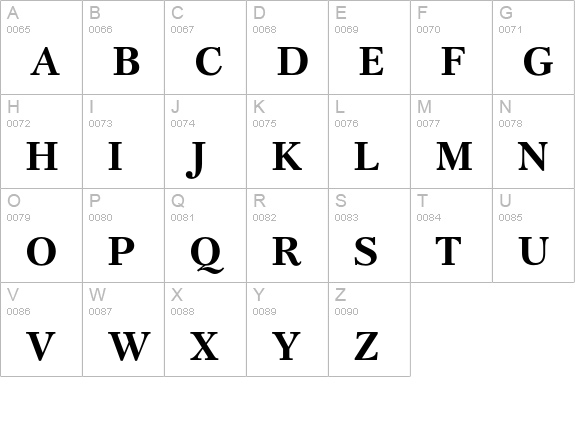
PT Petersburg Bold Cyrillic Font Details
PT Petersburg Bold Cyrillic is a strong, high-contrast variant in the PT typeface family \xE2\x80\x94 well suited to headlines, attention-grabbing titles, and strong calls-to-action.
Introducing PT Petersburg Bold Cyrillic, a stunning typeface that exudes elegance and strength. With its bold and commanding strokes, this font captures attention and leaves a lasting impression. Designed specifically for Cyrillic characters, PT Petersburg Bold Cyrillic showcases the beauty and richness of the Russian language. Each letter has been meticulously crafted to ensure perfect legibility, making it an ideal choice for a wide range of design projects. But what truly sets PT Petersburg Bold Cyrillic apart is its availability as a free download. Thanks to the generous nature of its creators, this extraordinary font can be freely accessed and utilized by designers, creatives, and enthusiasts alike. To obtain this remarkable font, simply visit FontsMarket.com and explore the vast collection of typefaces available. With just a few clicks, you can download PT Petersburg Bold Cyrillic and begin incorporating its striking presence into your projects. Whether you're designing a logo, crafting a poster, or creating an eye-catching web page, PT Petersburg Bold Cyrillic will effortlessly elevate your work to new heights. Its timeless appeal and bold demeanor make it a versatile and essential addition to any designer's toolkit. Don't miss out on the opportunity to enhance your typographic repertoire with PT Petersburg Bold Cyrillic. Download it for free at FontsMarket.com today and let your creativity flourish.